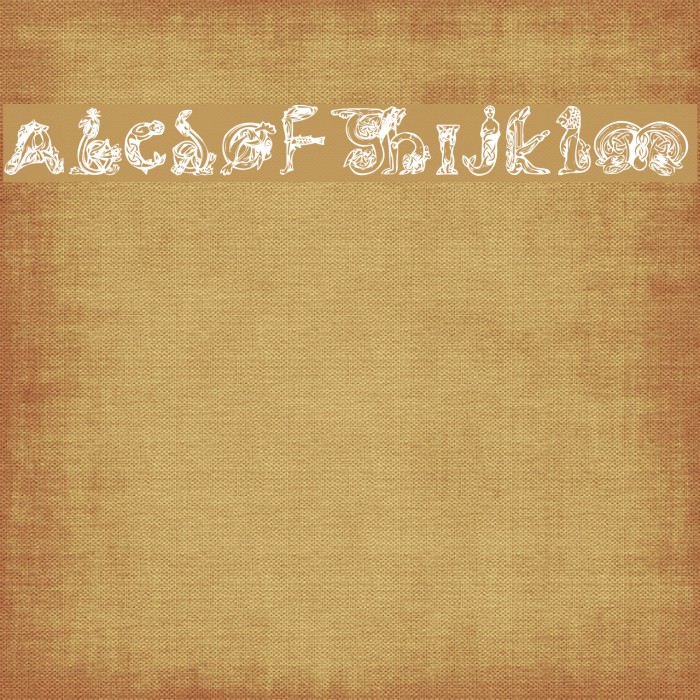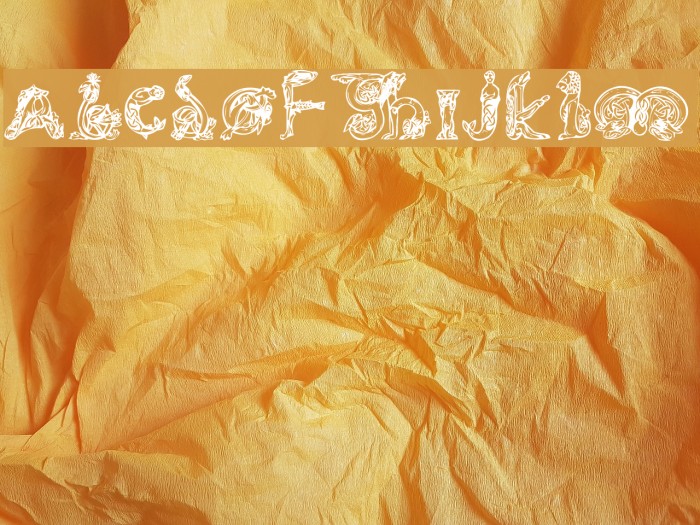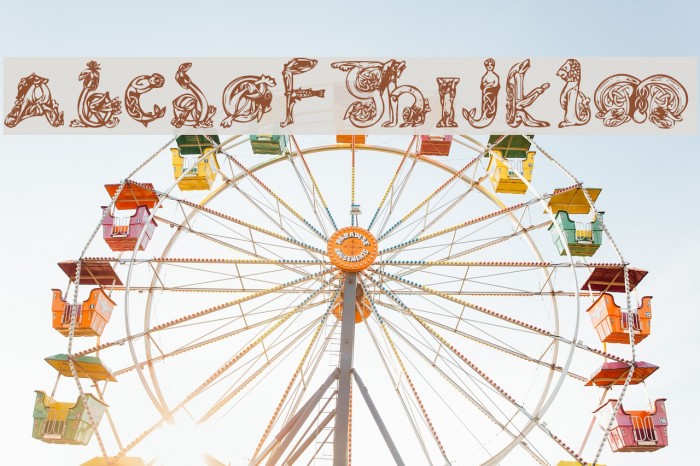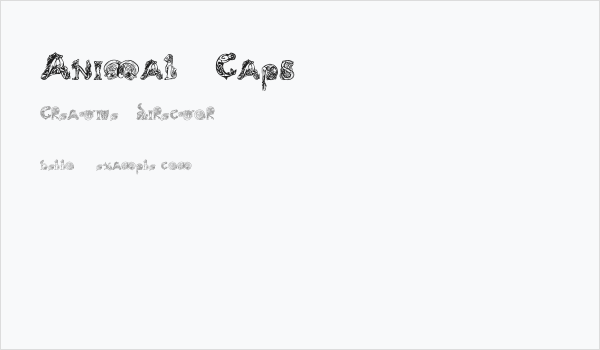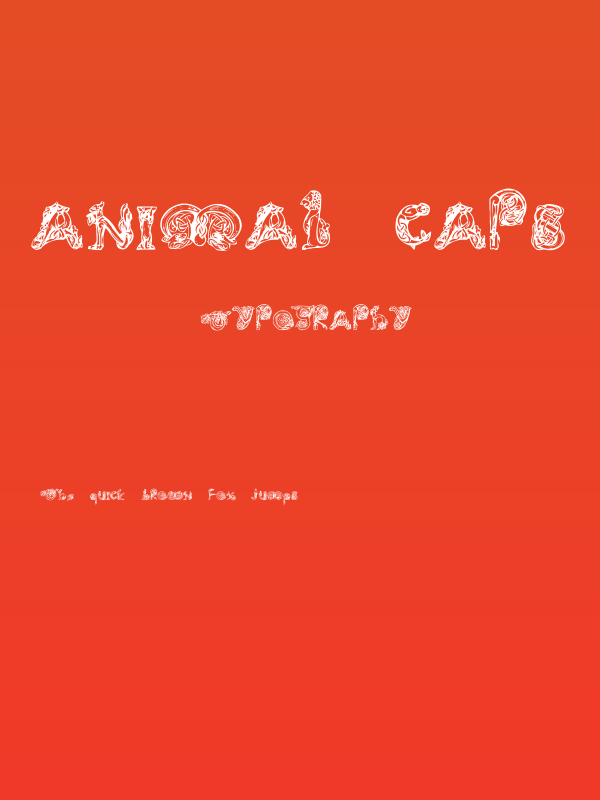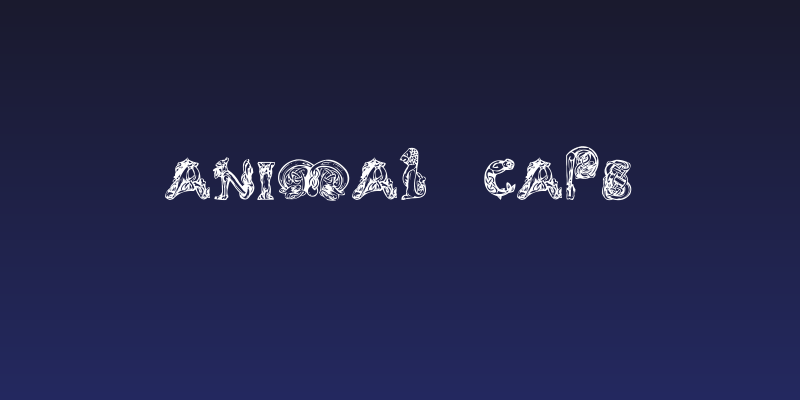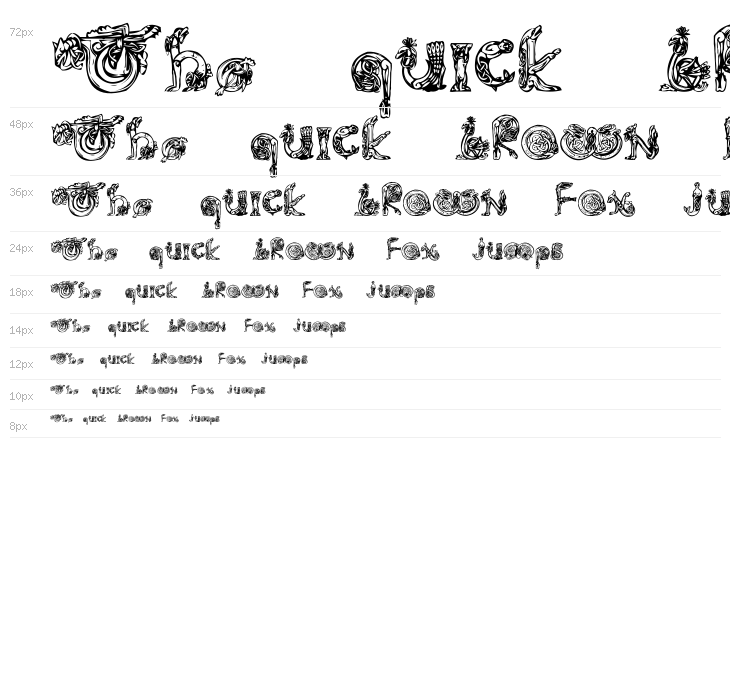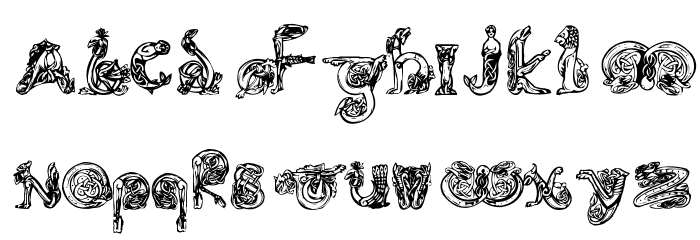
Animal Caps Font
Animal Caps Description
This font is a highly decorative and intricate typeface that incorporates animal motifs into each letterform. The characters are filled with detailed illustrations of various animals, creating a whimsical and artistic appearance. Each letter is unique, with the animal designs seamlessly integrated into the structure of the characters. This font is not only visually striking but also playful, making it ideal for creative projects that require a touch of fantasy and imagination. The complexity of the design suggests a hand-drawn quality, adding to its charm and appeal.
| Use Case | Logos, Posters, Creative projects |
| Proposed Projects | Ideal for children's books, fantasy-themed posters, creative invitations, and artistic branding projects. |